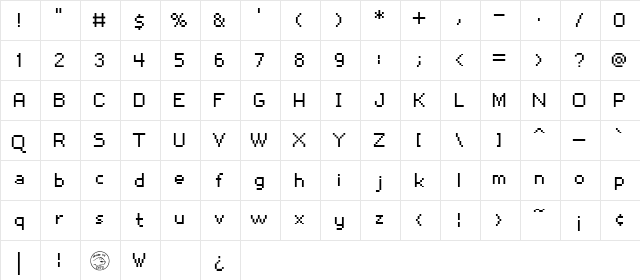
snoot.org pixel10 Regular
| Foundry | [ Divide By Zero ] Fonts |
| Designer | Tom Murphy 7 |
Design Context for snoot.org pixel10 Typeface
snoot.org pixel10 is rooted in pixel-grid construction, making it a natural fit for game UI, retro computing aesthetics, and digital nostalgia projects.
A natural choice for retro game titles, chiptune music branding, 8-bit UI, and digital nostalgia projects.